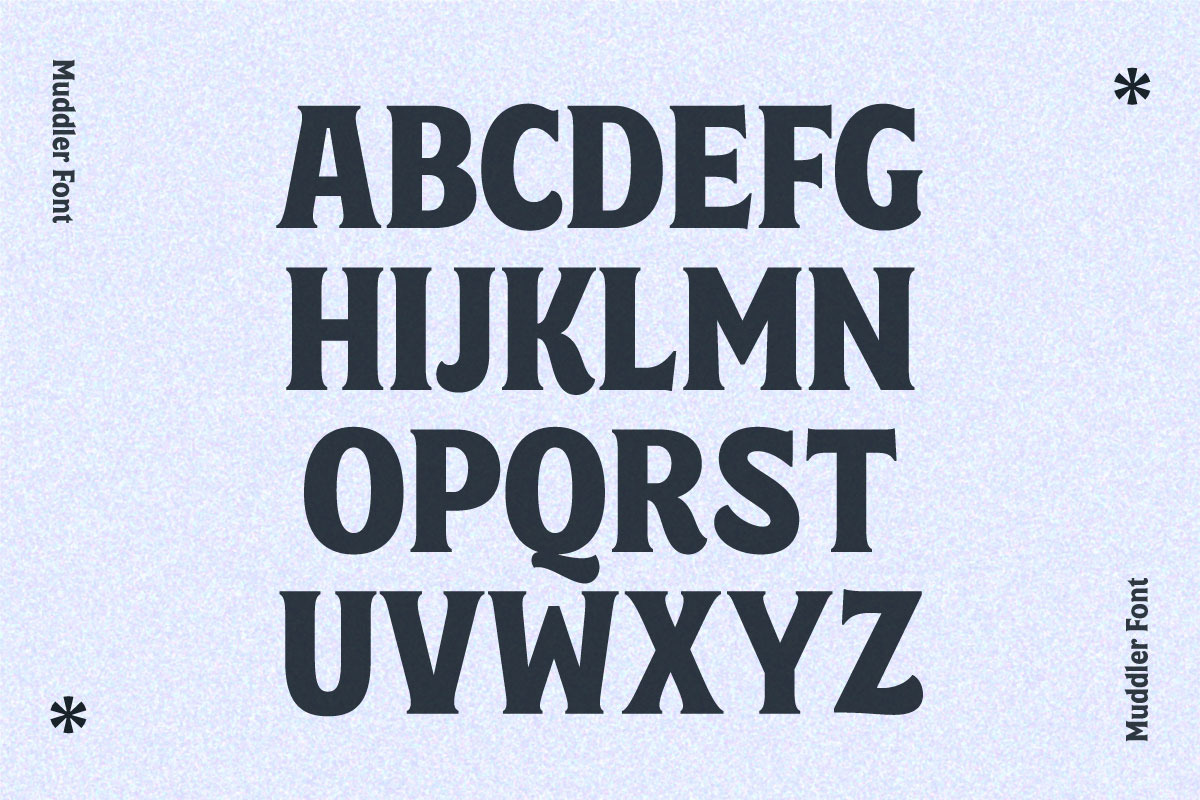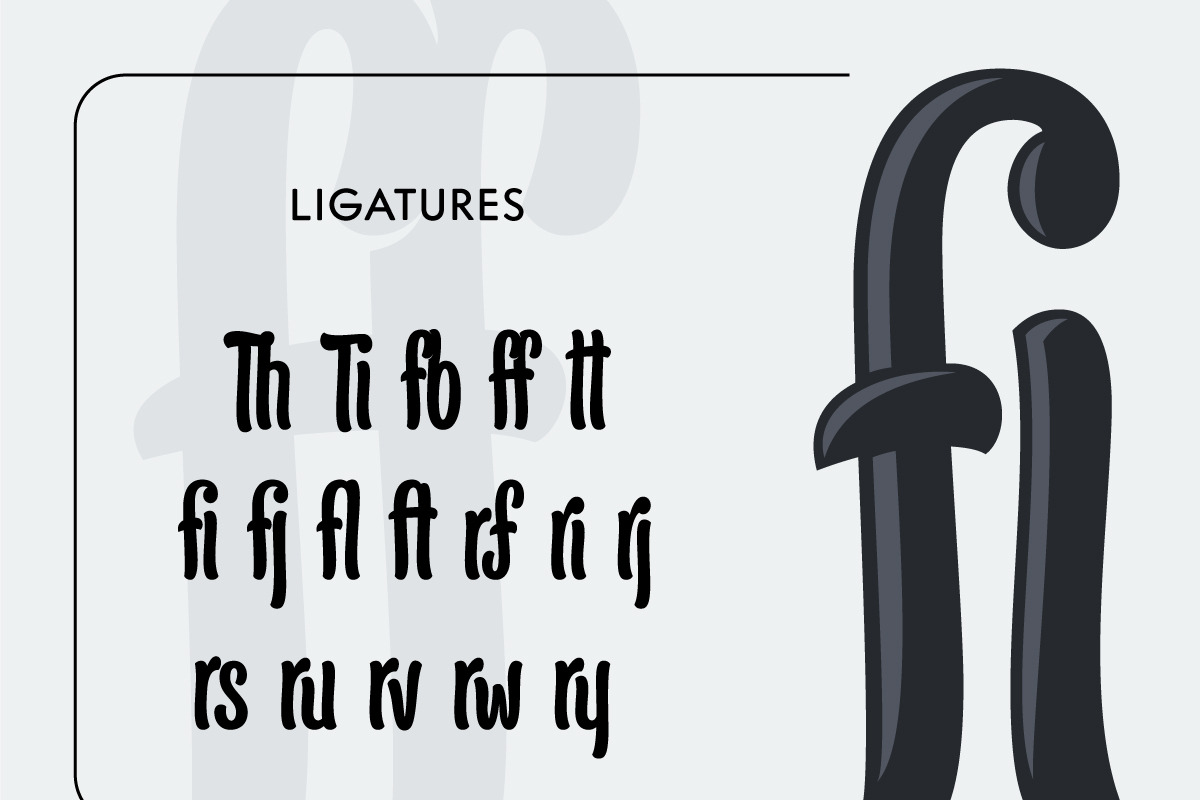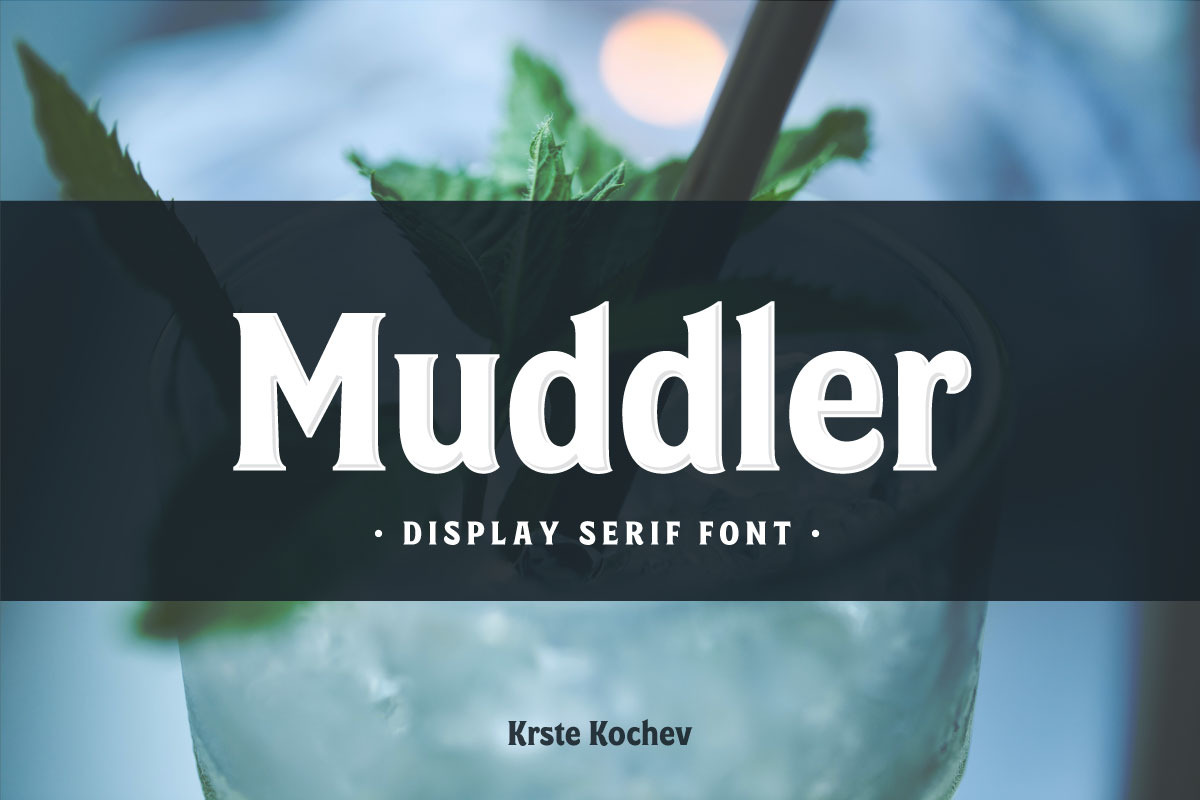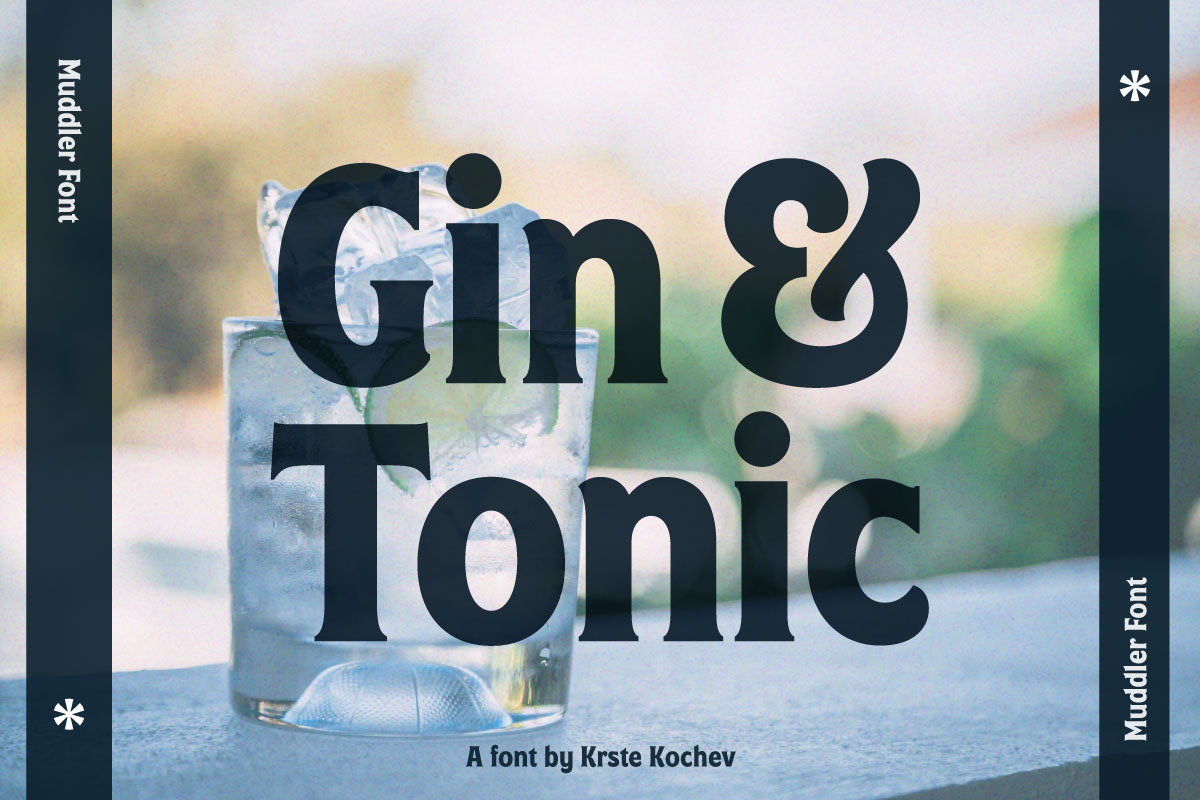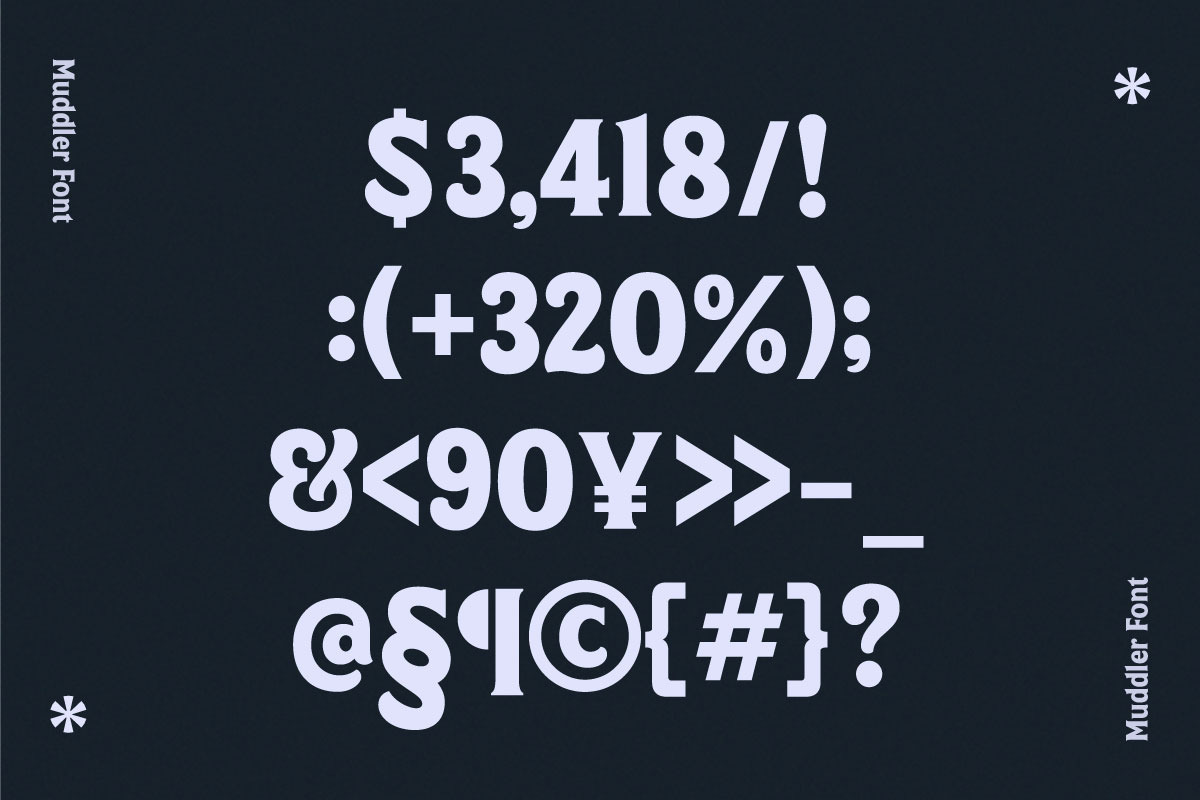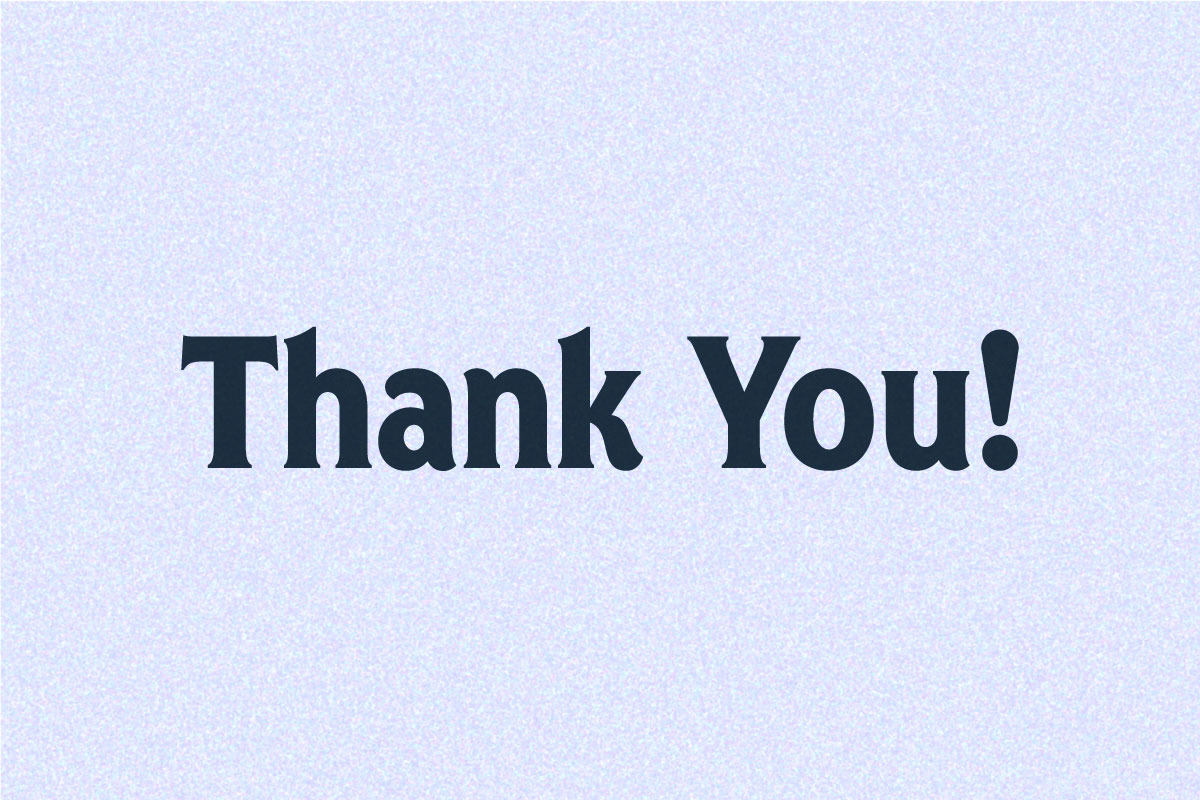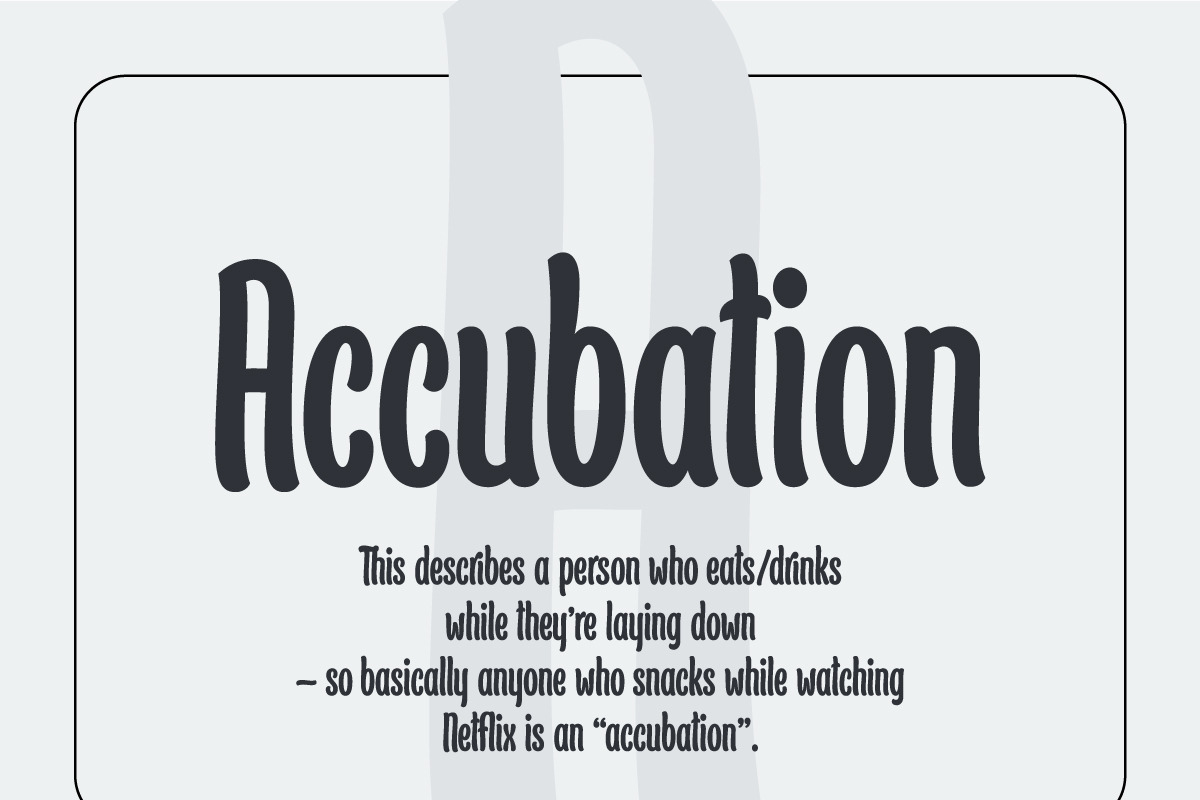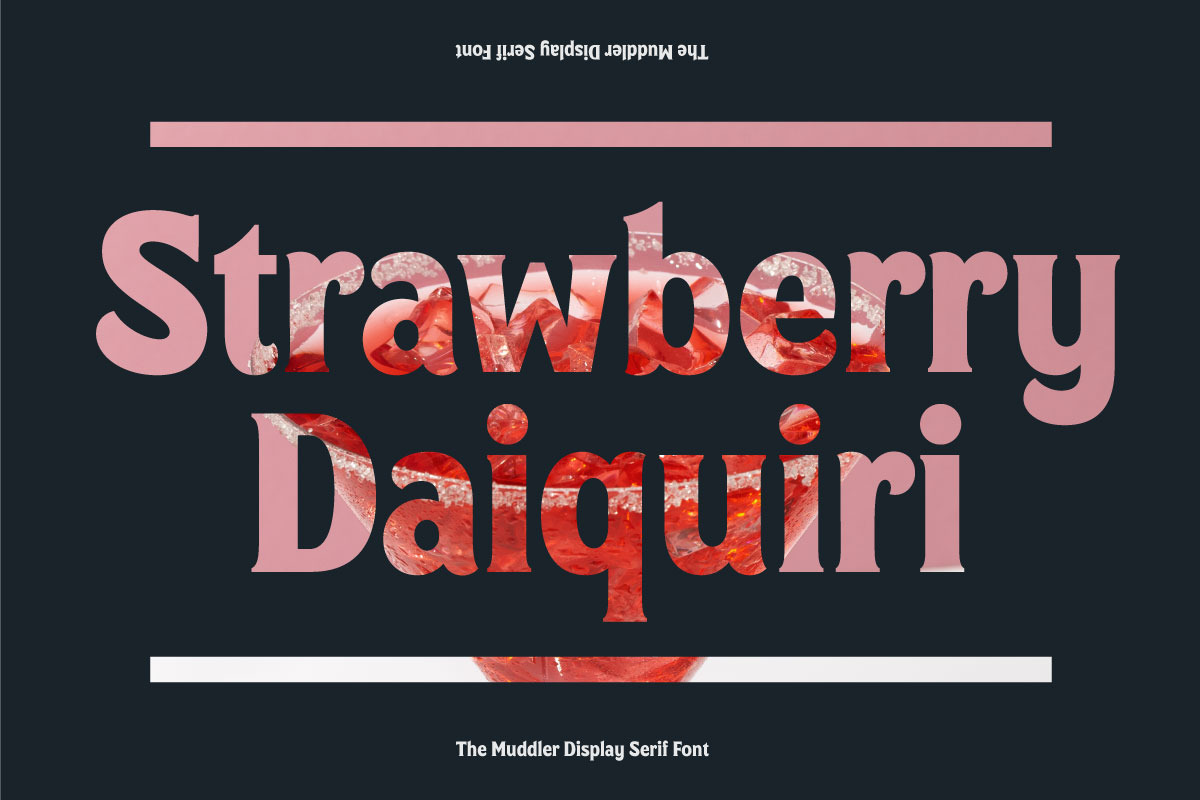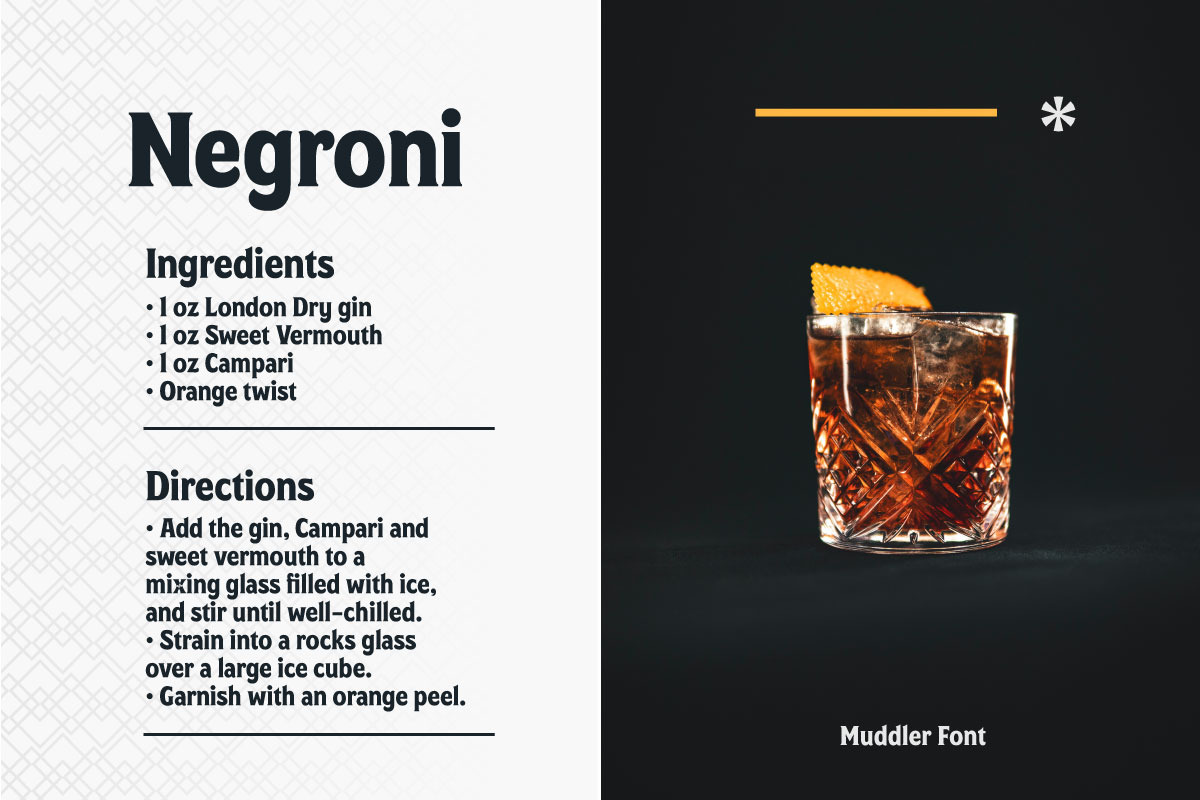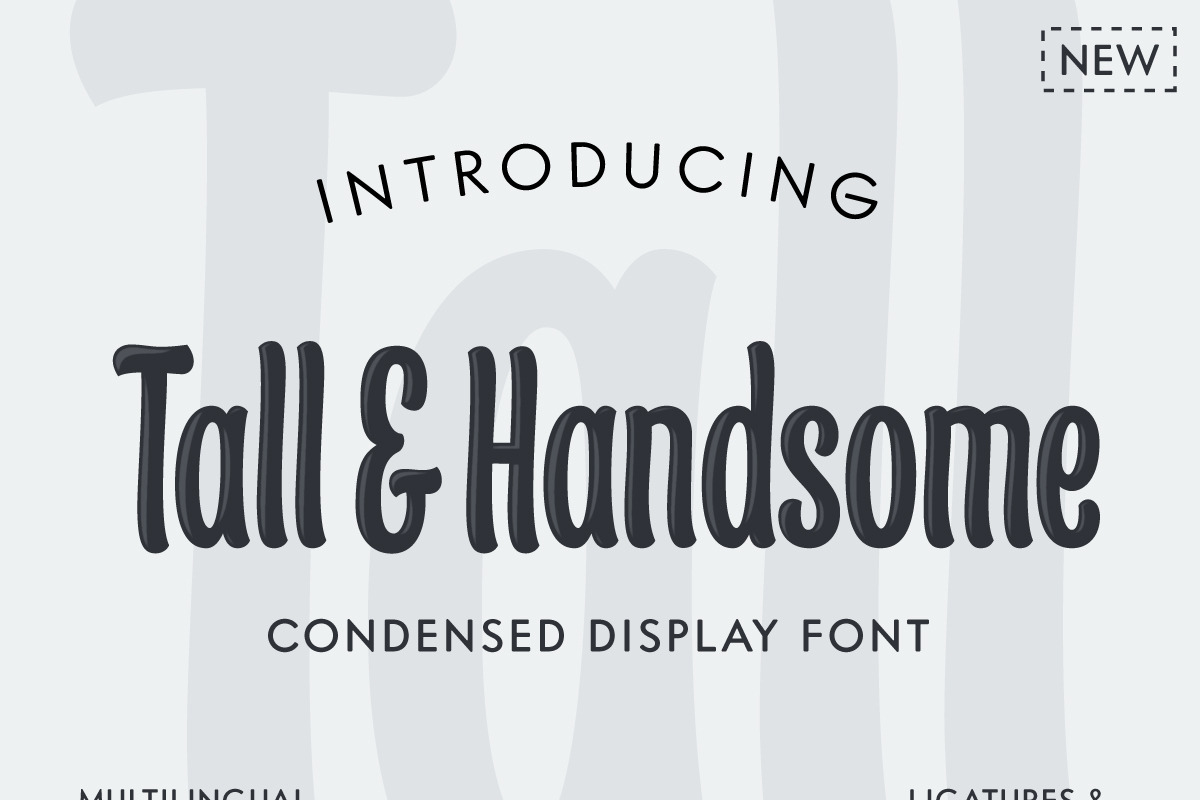
Tall&Handsome is a stylish and condensed display font. The organic narrow-shaped letters make this font perfect for those troubling long words and large volume sentences. It's casual and relaxed vibe is suitable for great variety of projects.
Muddler Display Serif font is a unique blend of classic and contemporary design elements. It features elegant, curving serifs that harken back to traditional typefaces, but with a modern twist that adds a touch of sophistication and flair. This font is ideal for use in large headlines, posters, book covers and other eye-catching designs that require a bit of personality and charm. Its retro-modern style can help create a visually striking and memorable impression for any project.